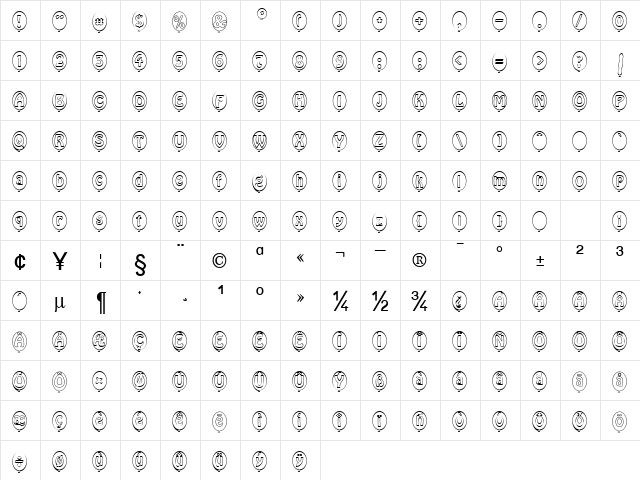
SP Ballon DB Bold Font Preview
SP Ballon DB Bold
Design Context for SP Ballon DB Typeface
SP Ballon DB is a composed and adaptable typeface that performs quietly and consistently across a wide range of design contexts. Its bold stroke weight gives it real presence on the page.